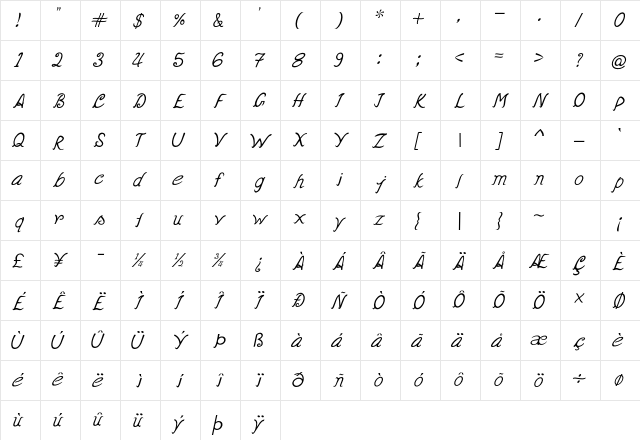
Eliva is a composed and adaptable typeface that performs quietly and consistently across a wide range of design contexts. The slanted form adds forward momentum and visual energy.
Pro Tip: Use Eliva for emphasis, pull quotes, and subheadings where its slanted energy can add rhythm to the layout.